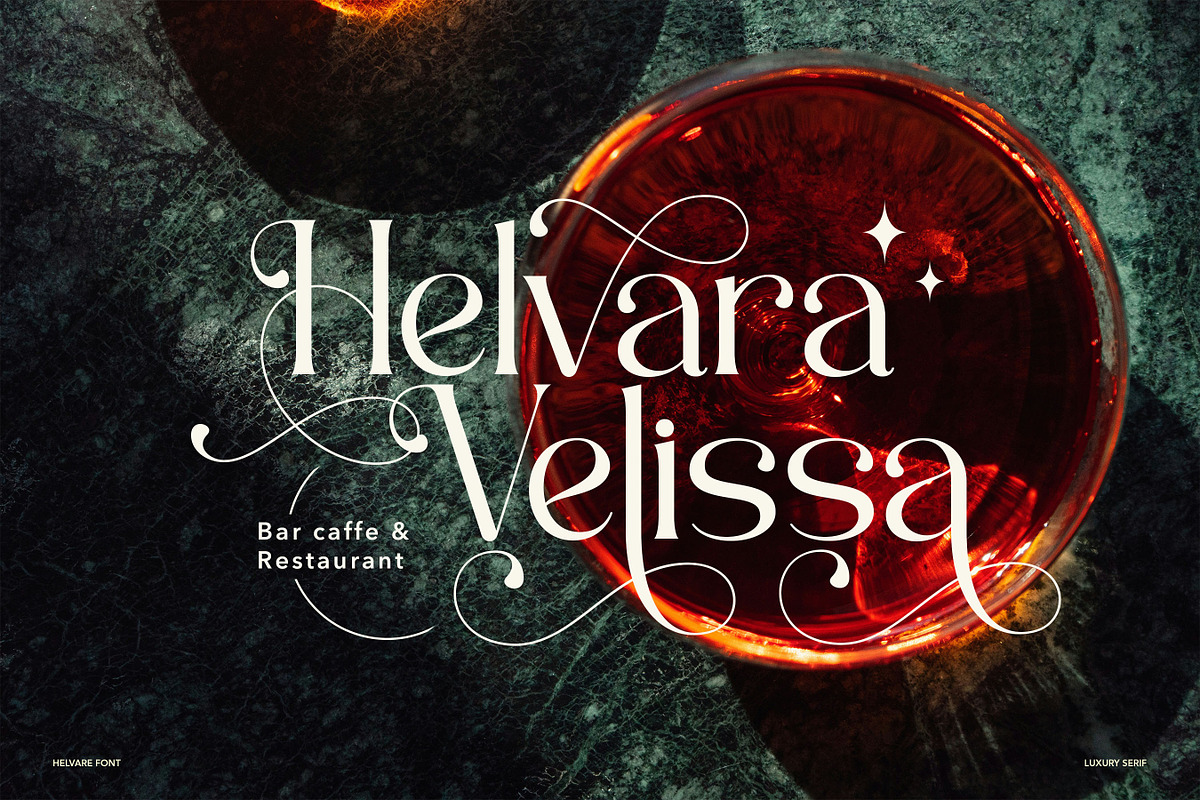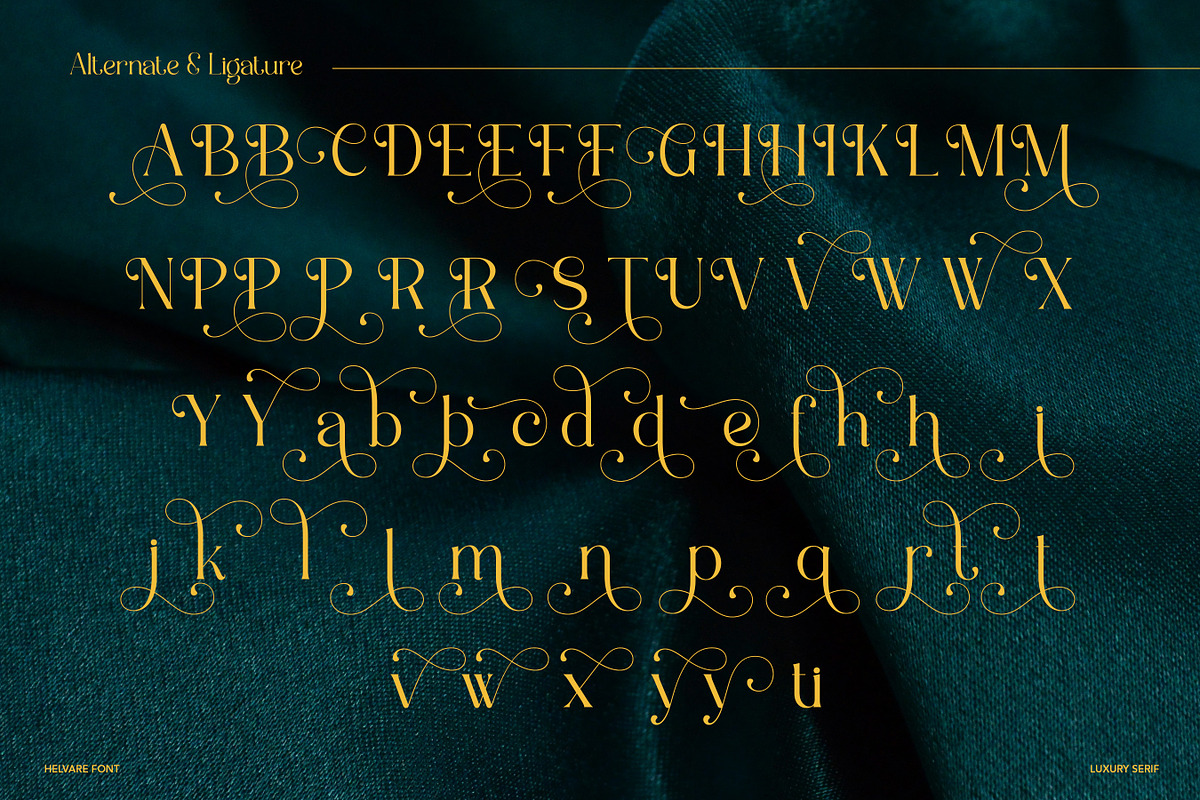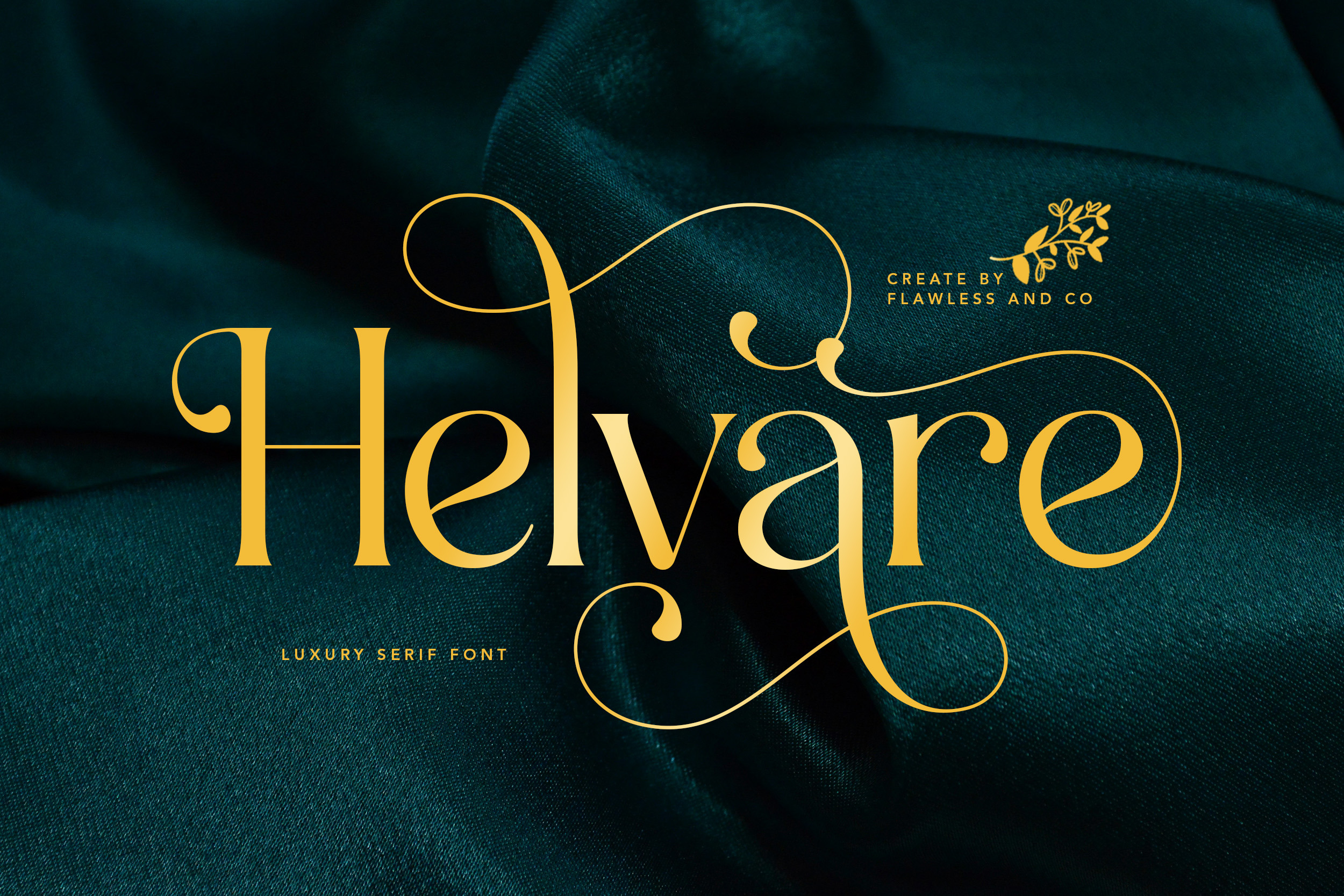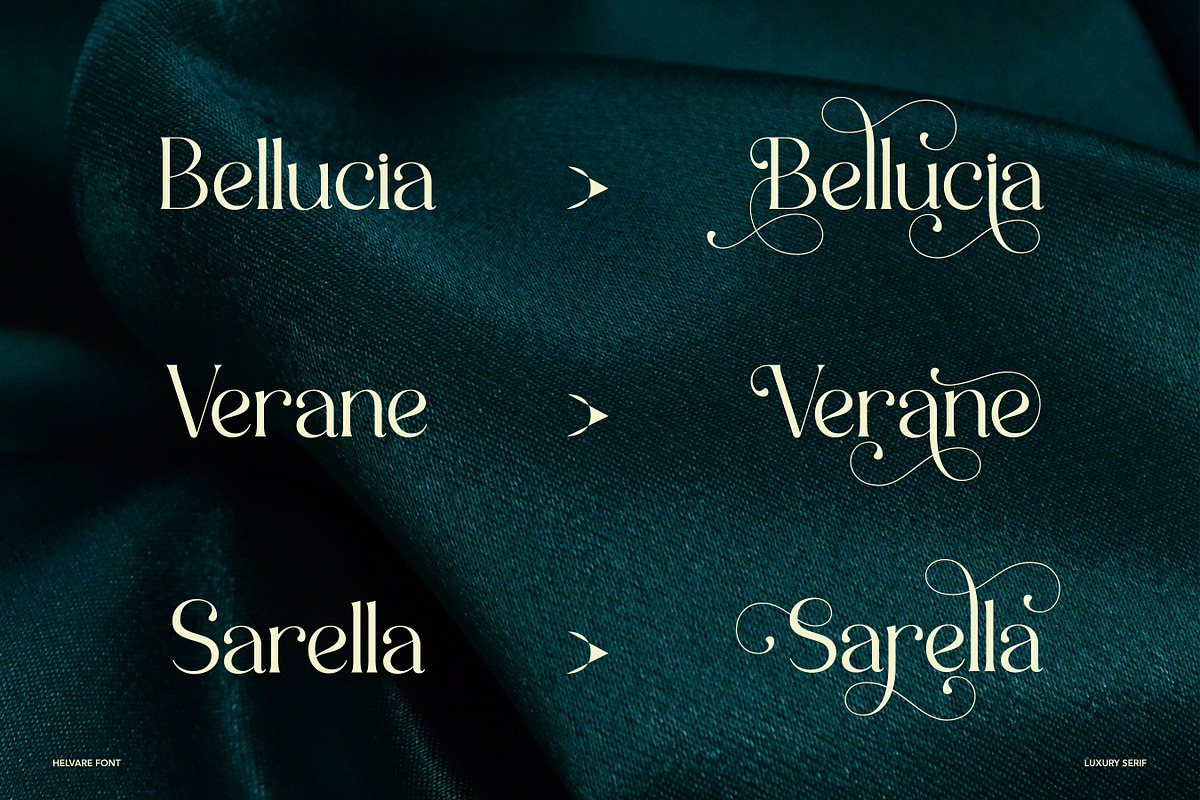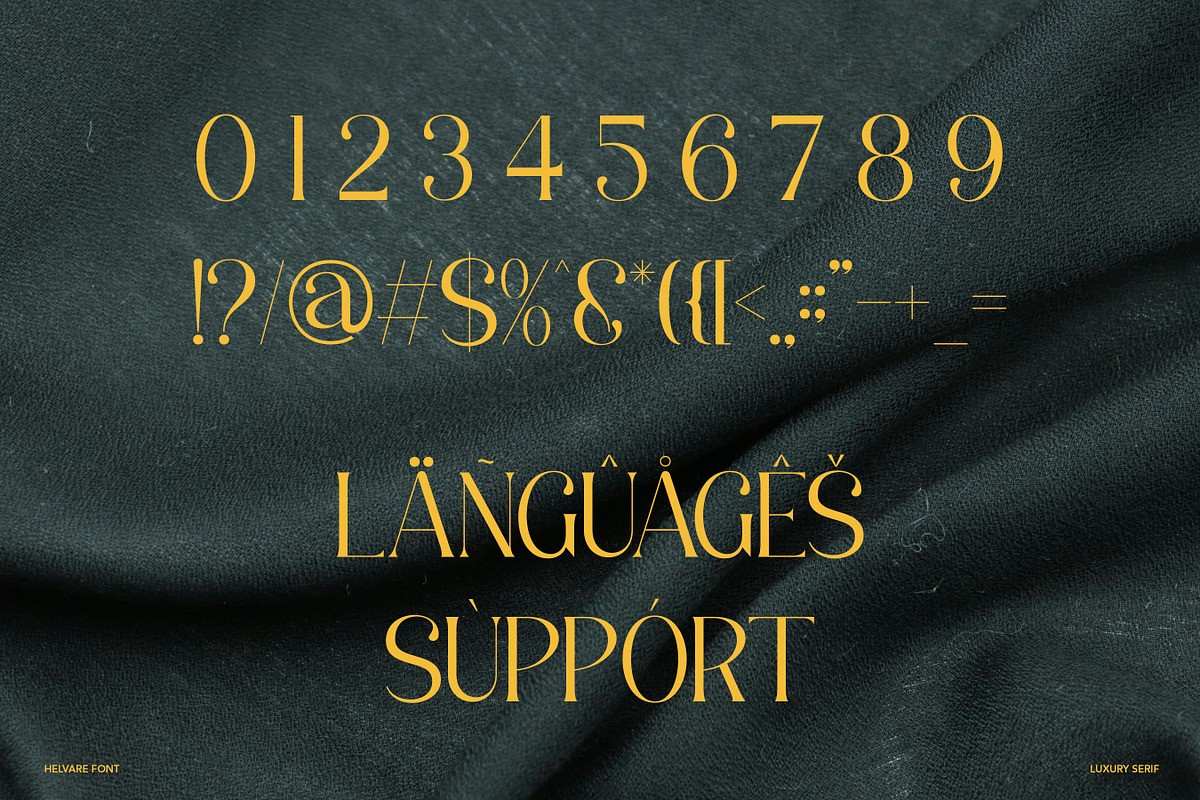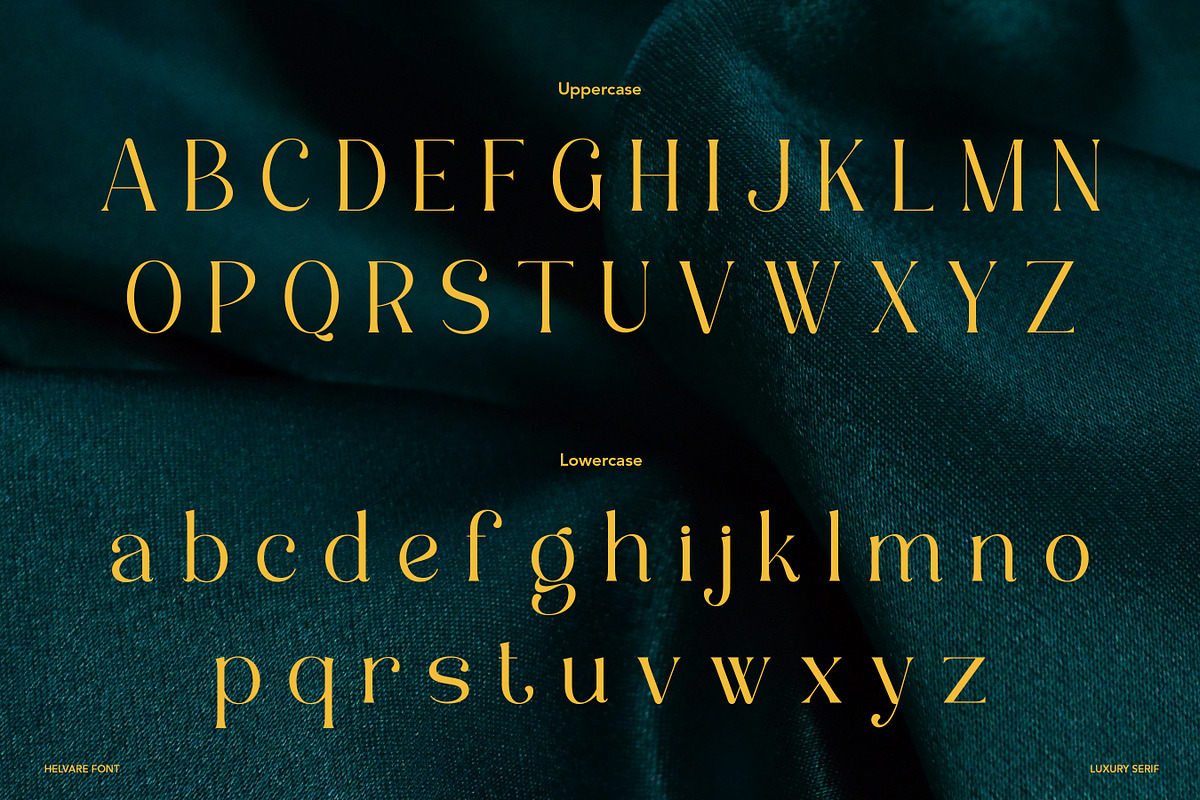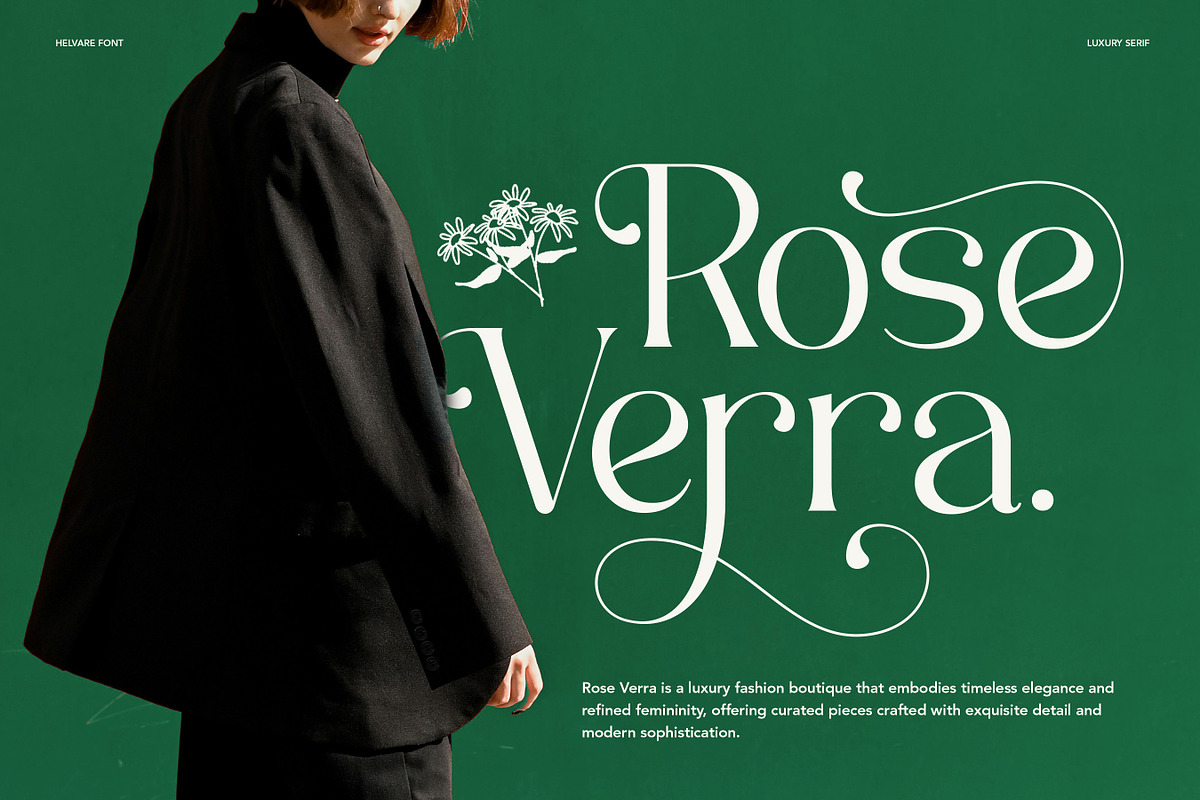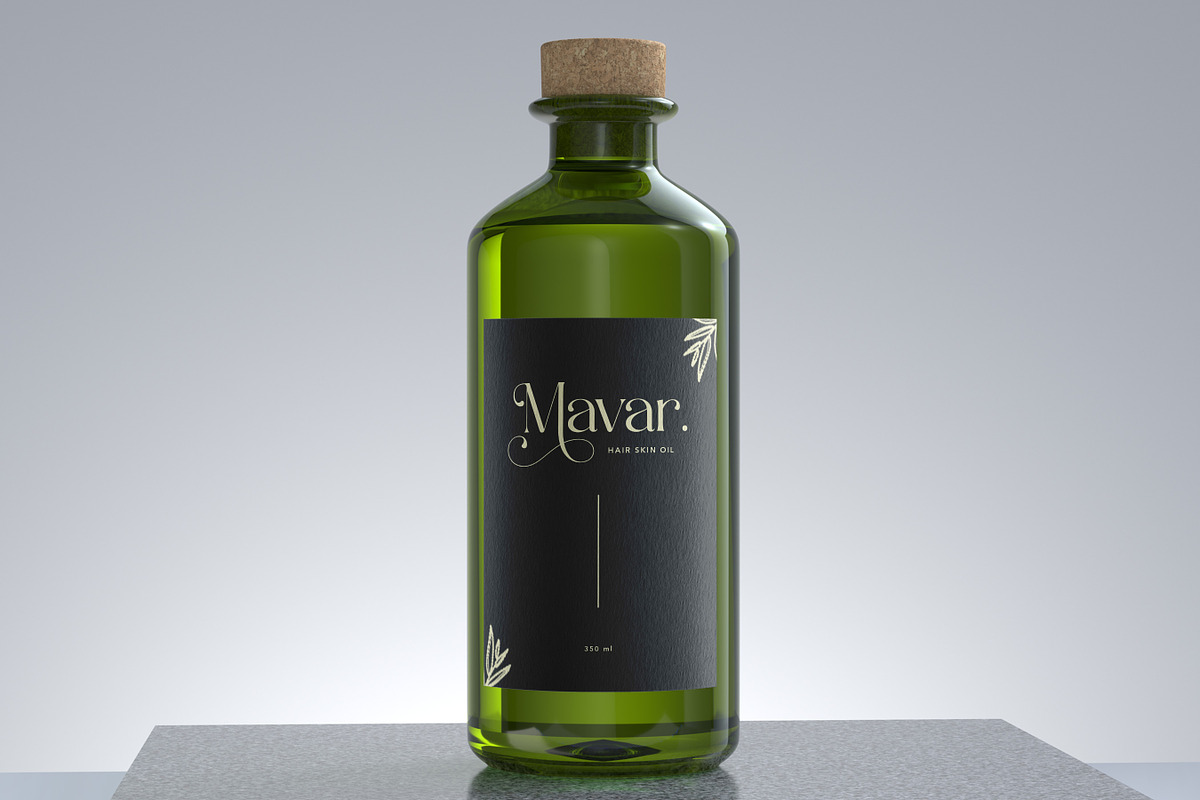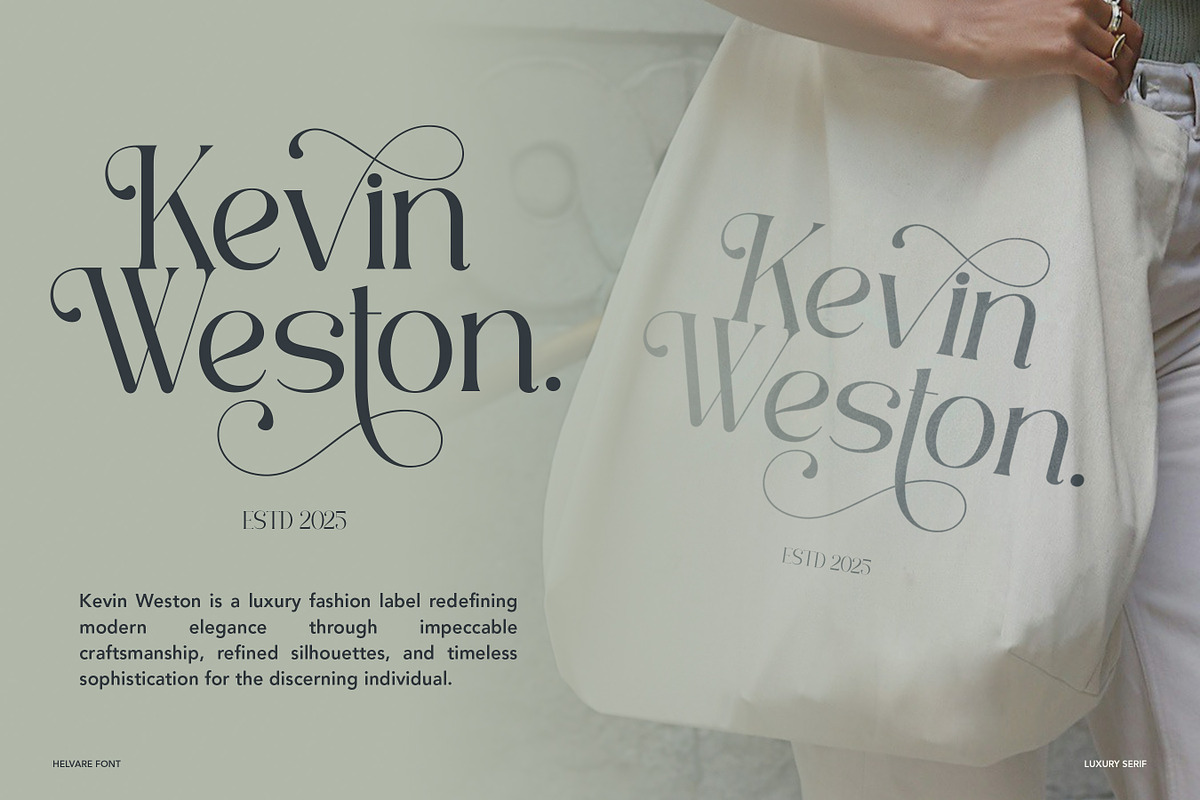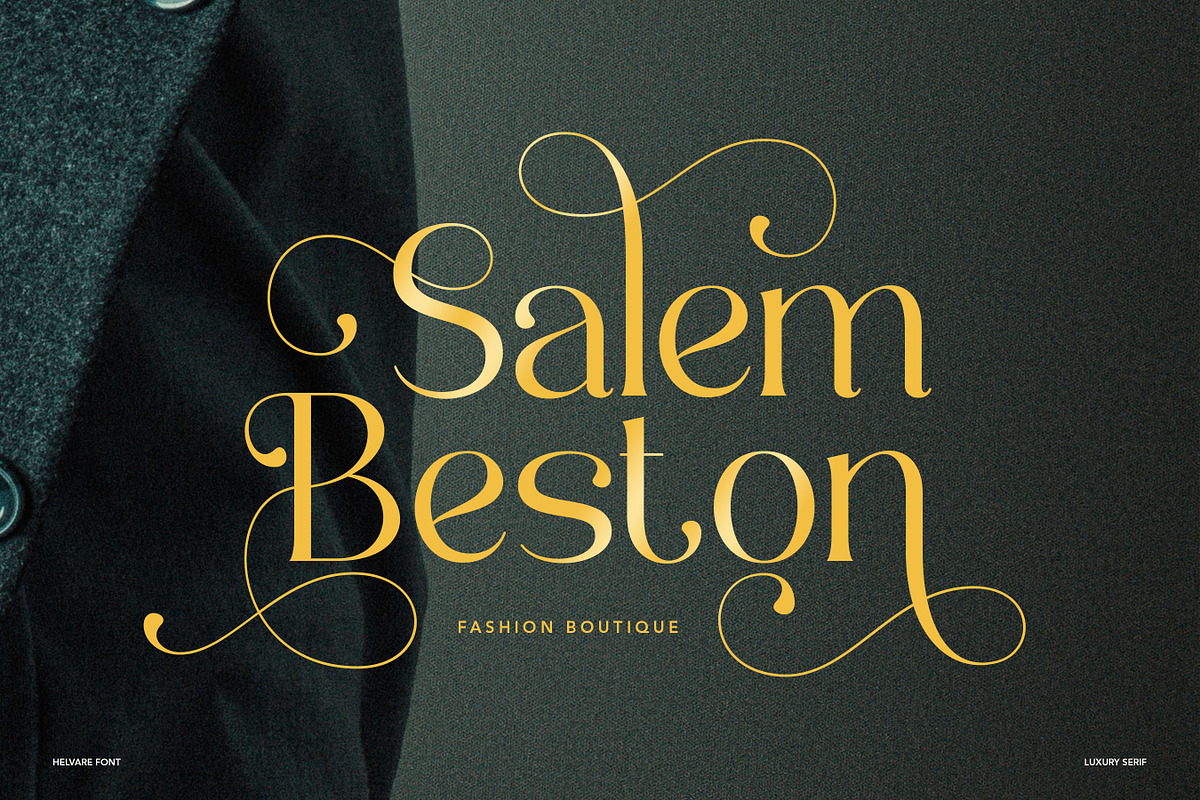
Helvare - Luxury serif Font
Helvare - Luxury Serif Font
Helvare is a luxury serif typeface that redefines sophistication with graceful curves, refined details, and timeless elegance. Designed for modern branding, fashion, and editorial use, Helvare embodies the perfect balance of classic charm and contemporary aesthetics. Its stylish ligatures and exquisite letterforms make it an essential choice for creating high-end logos, upscale packaging, wedding invitations, and premium brand identities. Crafted with precision and artistry, Helvare is more than just a font—it is a statement of elegance for designers who seek to elevate their work with a touch of luxury.
Who Should Use Helvare?
Helvare is the perfect choice for designers, brands, and creatives who want to convey luxury, elegance, and timeless style in their work. Whether you’re building a premium brand, crafting a high-fashion editorial, or designing wedding stationery, Helvare brings a sense of refinement and exclusivity to every project.
A Must-Have Font for Brand, Logo, Wedding, and Beauty Creators and Designers
Helvare is an essential typeface for professionals and creatives who want to add a touch of sophistication and class to their projects. Its elegant design makes it perfect for brand identities, luxury logos, wedding invitations, and beauty-related designs—ensuring your work always stands out with timeless appeal.
Why Choose Helvare for Brand, Logo, and Wedding Projects?
Helvare is more than just a font—it’s a statement of elegance and refinement. Designed with timeless serif details and modern versatility, this typeface adds sophistication to every project. Whether you’re building a luxury brand identity, designing wedding invitations, or crafting a memorable logo, Helvare ensures your work radiates class, beauty, and professionalism.
Suitable For:
- Luxury brand identities and elegant logo design
- Wedding invitations, stationery, and event branding
- Beauty, fashion, and lifestyle projects
- Editorial layouts, magazines, and premium packaging
- Social media graphics and marketing materials with a refined look